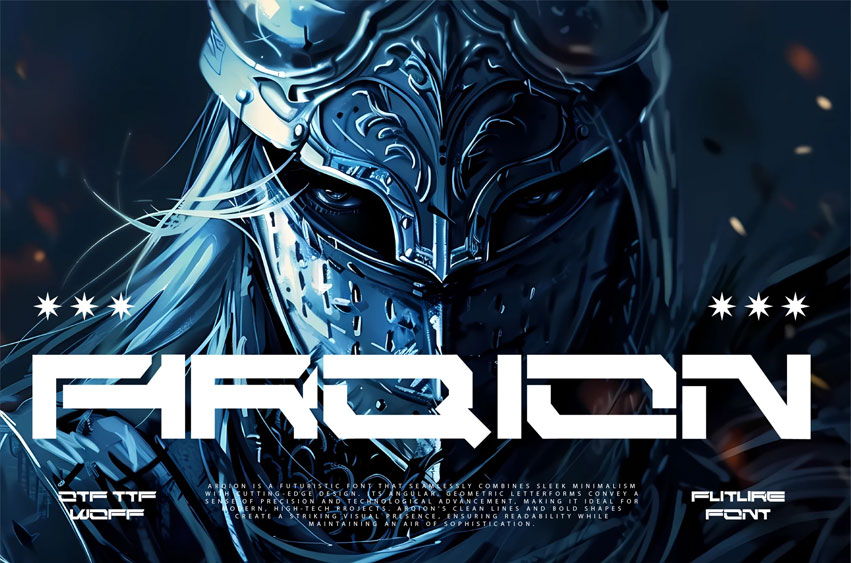
Arqion Futuristic Font is a futuristic font that seamlessly combines sleek minimalism with cutting-edge design. Its angular, geometric letterforms convey a sense of precision and technological advancement, making it ideal for modern, high-tech projects.
Arqion’s clean lines and bold shapes create a striking visual presence, ensuring readability while maintaining an air of sophistication.